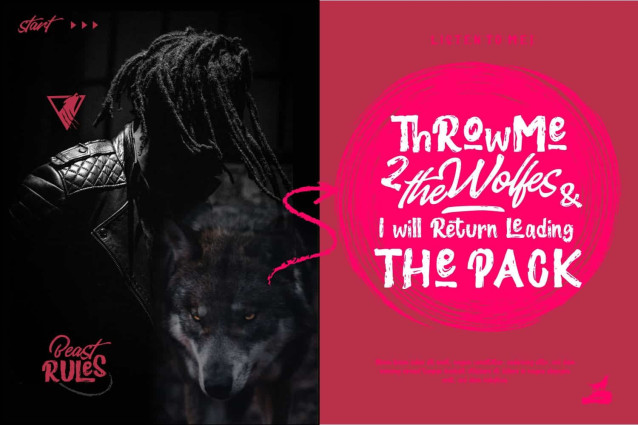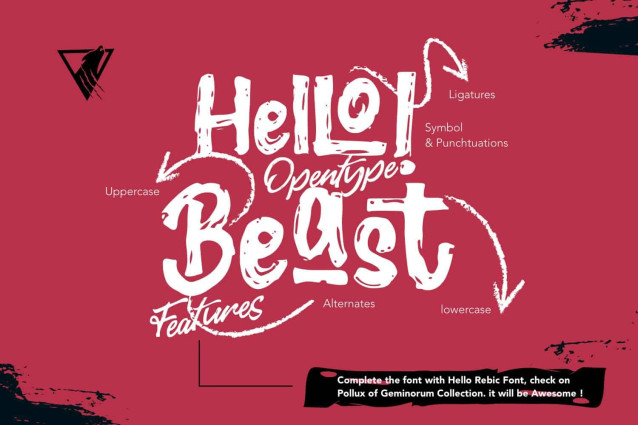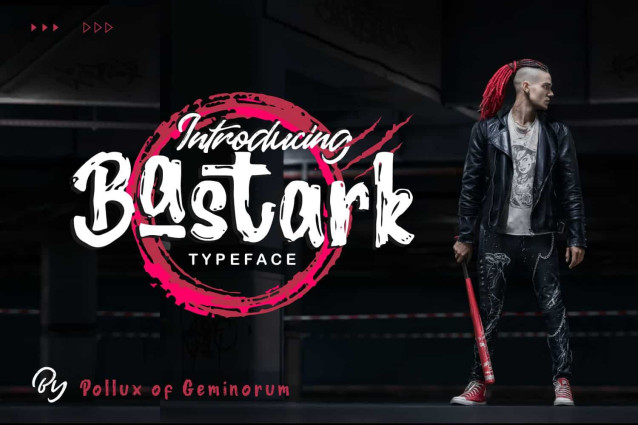
Bastark Font
Bastark Font, a rustic feel with multipurpose function that suitable for logo, book cover, banner, social media, poster, apps, TVC etc.Bastark is a unique and modern display font. Use it to make your ideas even more realistic and create spectacular designs!Feel free to contact us if you have any question regarding this rustic typeface.